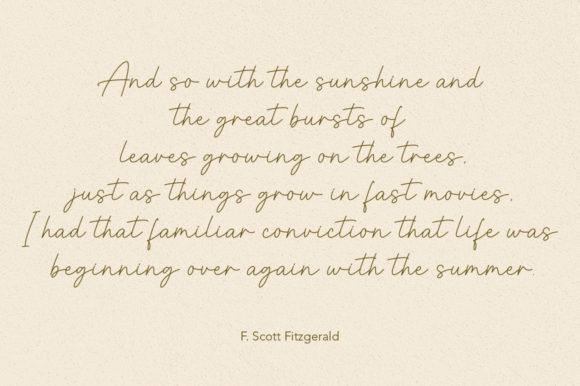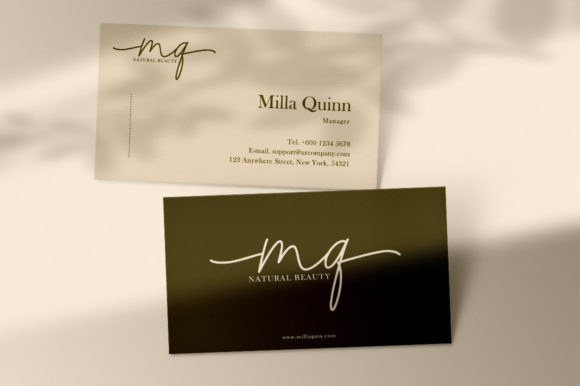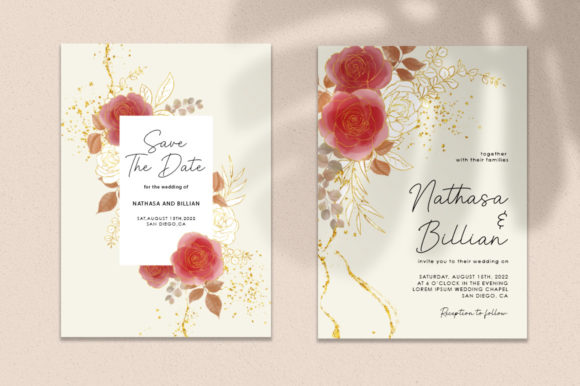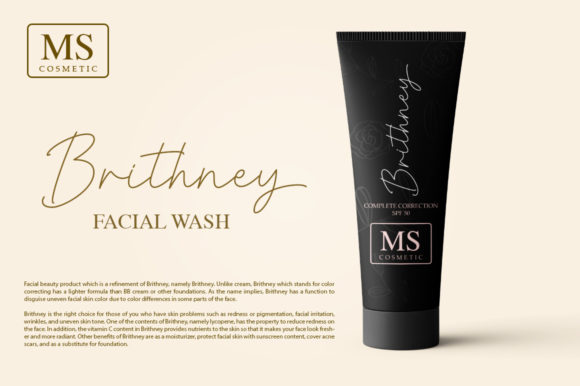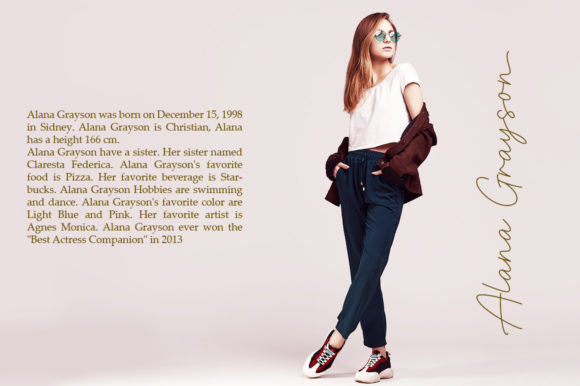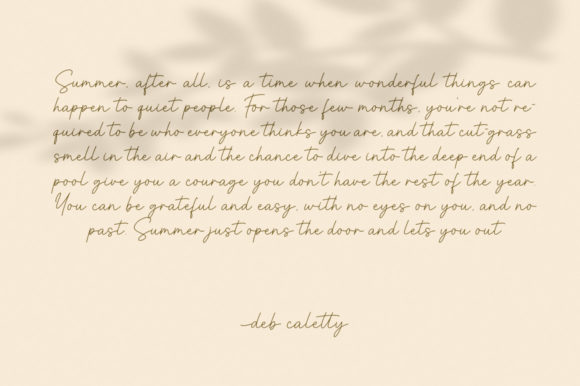
Daisy Font: The Perfect Choice for Romantic and Personalized Designs
Are you looking for a font that exudes sweetness and joy? Look no further than the Daisy Font! This dainty and flowing handwritten font is ideal for creating romantic and personalized designs, such as wedding invitations, cards, and more. In this article, we’ll dive into the features and benefits of the Daisy Font, and explore how it can elevate your design projects.
A Sweet and Joyful Font
The Daisy Font is a beautiful, handwritten font that is sure to capture the hearts of designers and crafters alike. Its delicate and flowing lines evoke a sense of romance and whimsy, making it perfect for designs that require a personal touch. Whether you’re creating wedding invitations, greeting cards, or other paper crafts, the Daisy Font is sure to add a touch of sweetness and joy to your projects.
Ideal for Romantic Designs
The Daisy Font is specifically designed to add a romantic and personalized touch to your designs. Its elegant and cursive lines make it perfect for wedding-related designs, such as:
- Wedding invitations
- Save-the-date cards
- Wedding programs
- Place cards
But the Daisy Font isn’t just limited to wedding designs. It’s also great for creating personalized cards and gifts for special occasions, such as:
- Birthday cards
- Anniversary cards
- Get-well cards
- Thank-you cards
One of the best features of the Daisy Font is that it’s PUA (Private Use Area) encoded. This means that you can access all of the glyphs and swashes with ease, giving you maximum flexibility and creative control over your designs. With the Daisy Font, you can:
- Access a wide range of glyphs and swashes
- Customize your designs with ease
- Create unique and personalized designs
The Daisy Font offers a range of benefits for designers and crafters, including:
- Flexibility: The font’s PUA encoding gives you maximum flexibility and creative control over your designs.
- Customization: With a wide range of glyphs and swashes at your disposal, you can create unique and personalized designs that stand out from the crowd.
- Time-saving: The Daisy Font saves you time and effort, allowing you to focus on the creative aspects of your design projects.
To get the most out of the Daisy Font, here are a few tips and inspiration ideas:
- Pair with other fonts: Experiment with pairing the Daisy Font with other fonts to create unique and interesting combinations.
- Use with watercolor designs: The Daisy Font looks beautiful paired with watercolor designs, adding a touch of romance and whimsy to your projects.
- Add embellishments: Use the font’s glyphs and swashes to add embellishments and flourishes to your designs.
In conclusion, the Daisy Font is a beautiful and versatile handwritten font that’s perfect for creating romantic and personalized designs. Its PUA encoding makes it easy to access a wide range of glyphs and swashes, giving you maximum flexibility and creative control over your projects. Whether you’re a designer or crafter, the Daisy Font is sure to become a favorite in your collection.